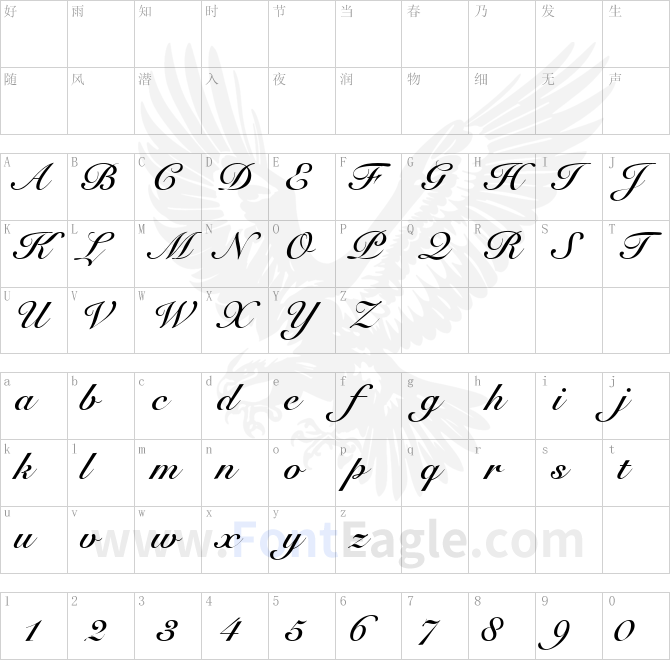
Snell-Roundhand-Bold-Script is a great font, widely used in graphic design, single-page menu design, poster design and other fields, and is deeply loved by designers.Snell-Roundhand-Bold-Script download.